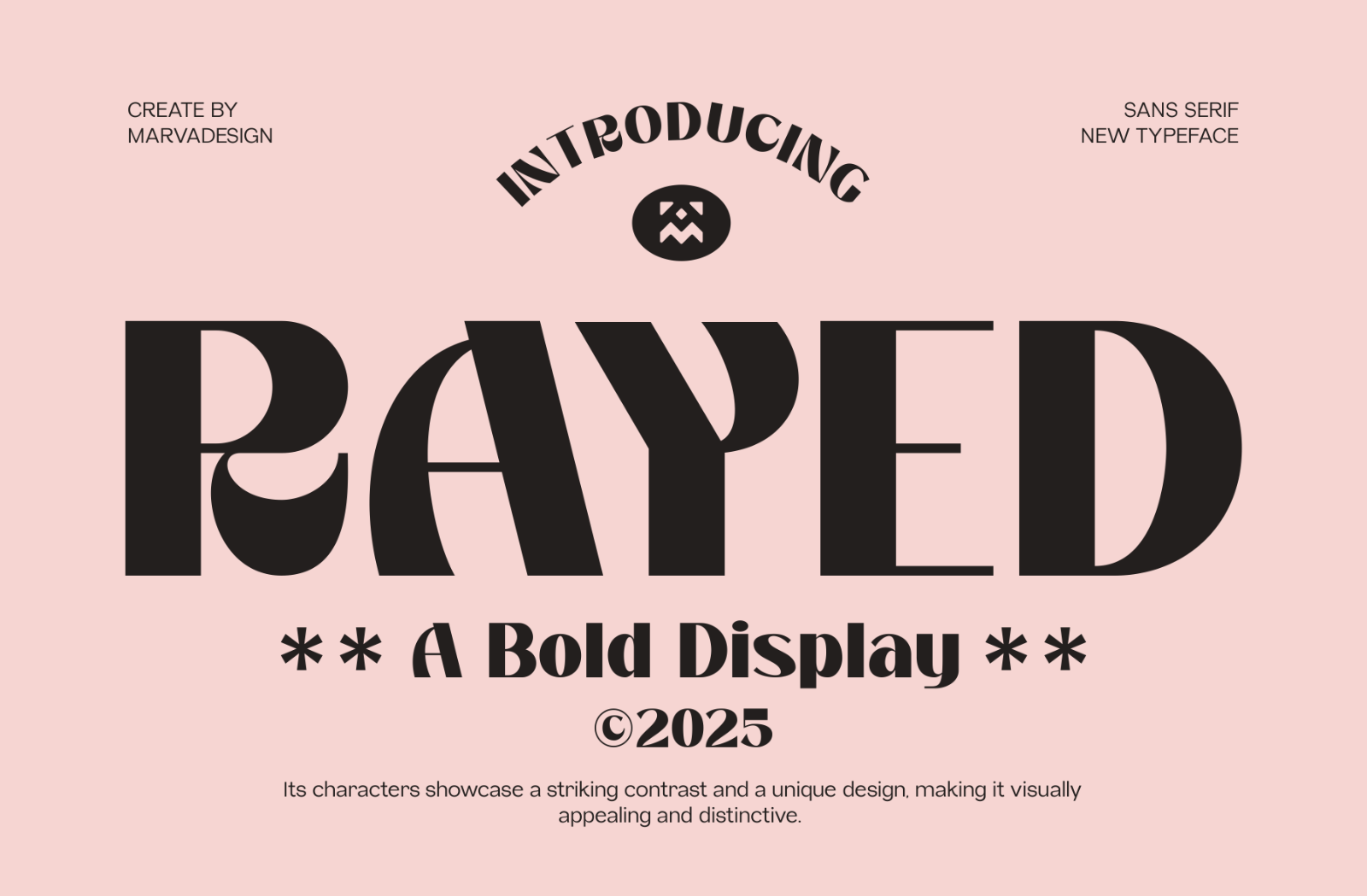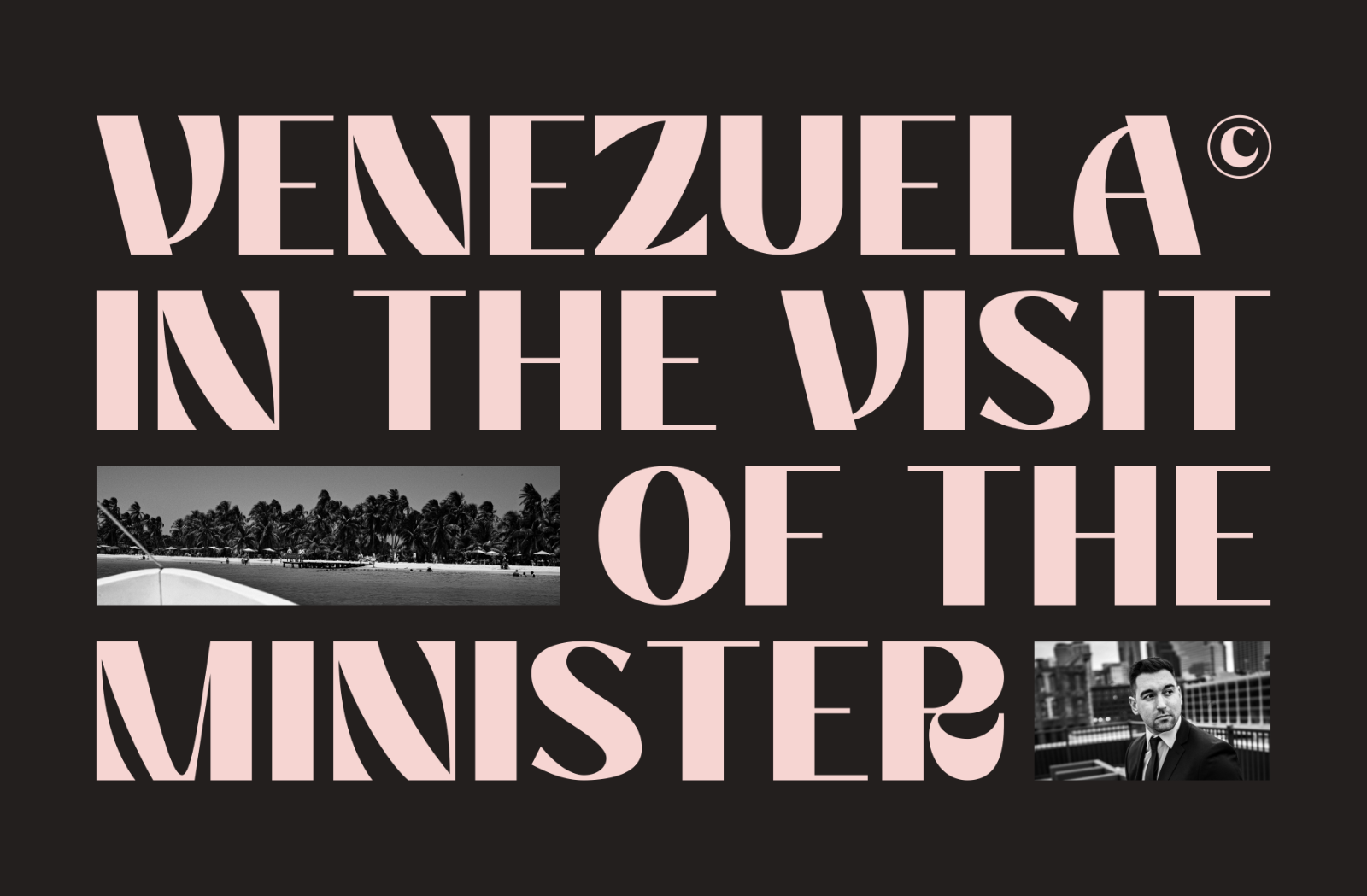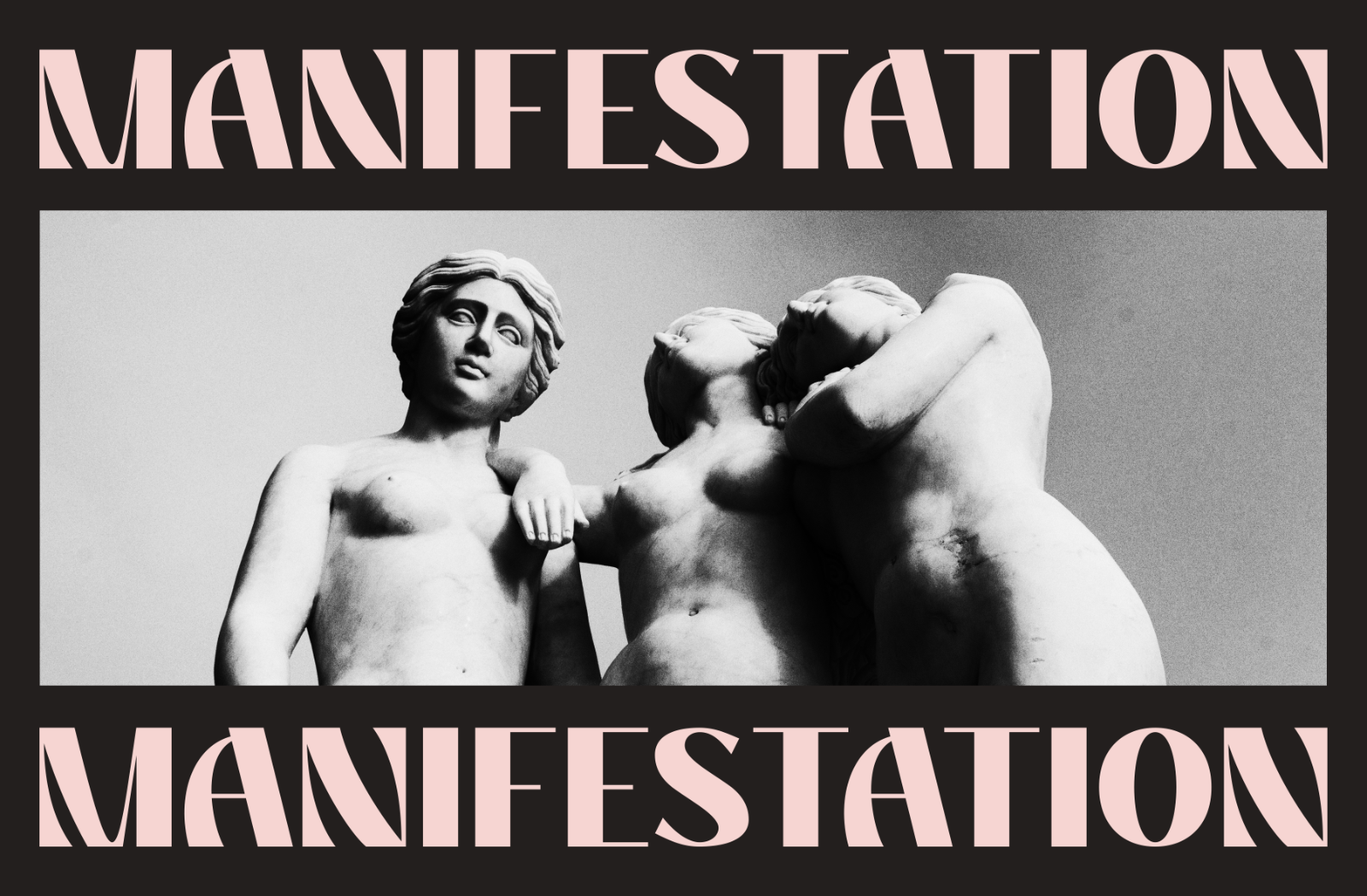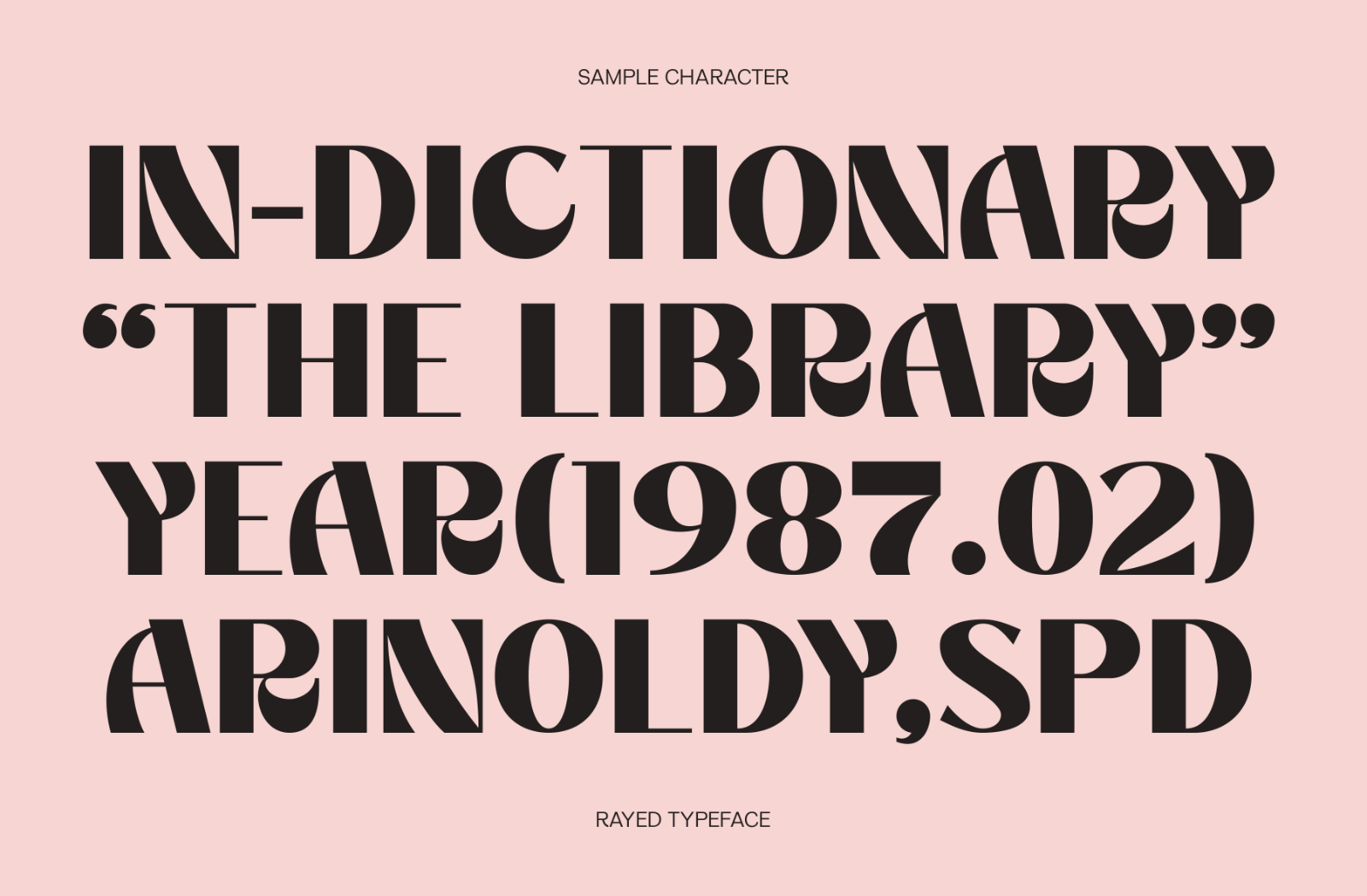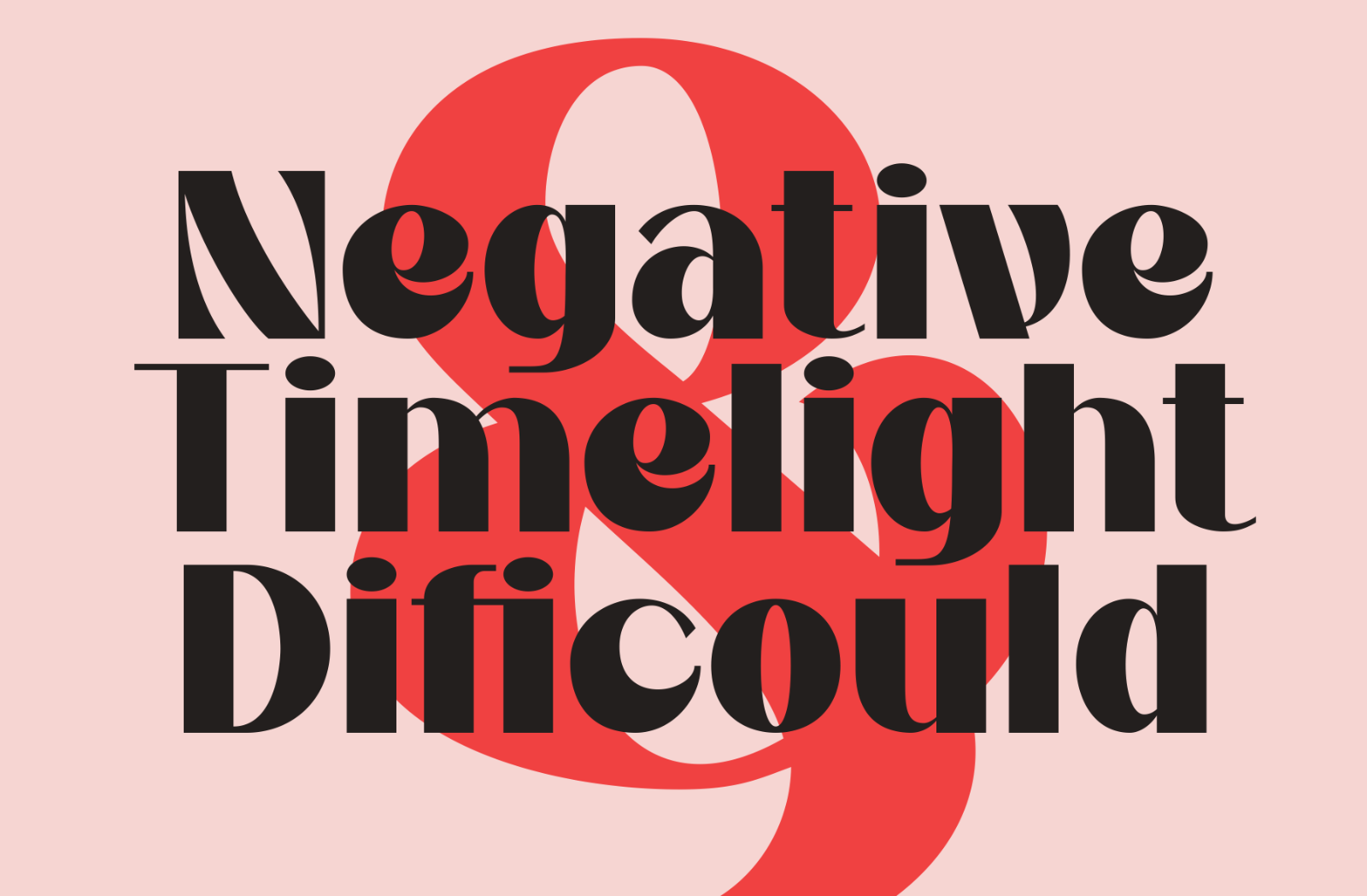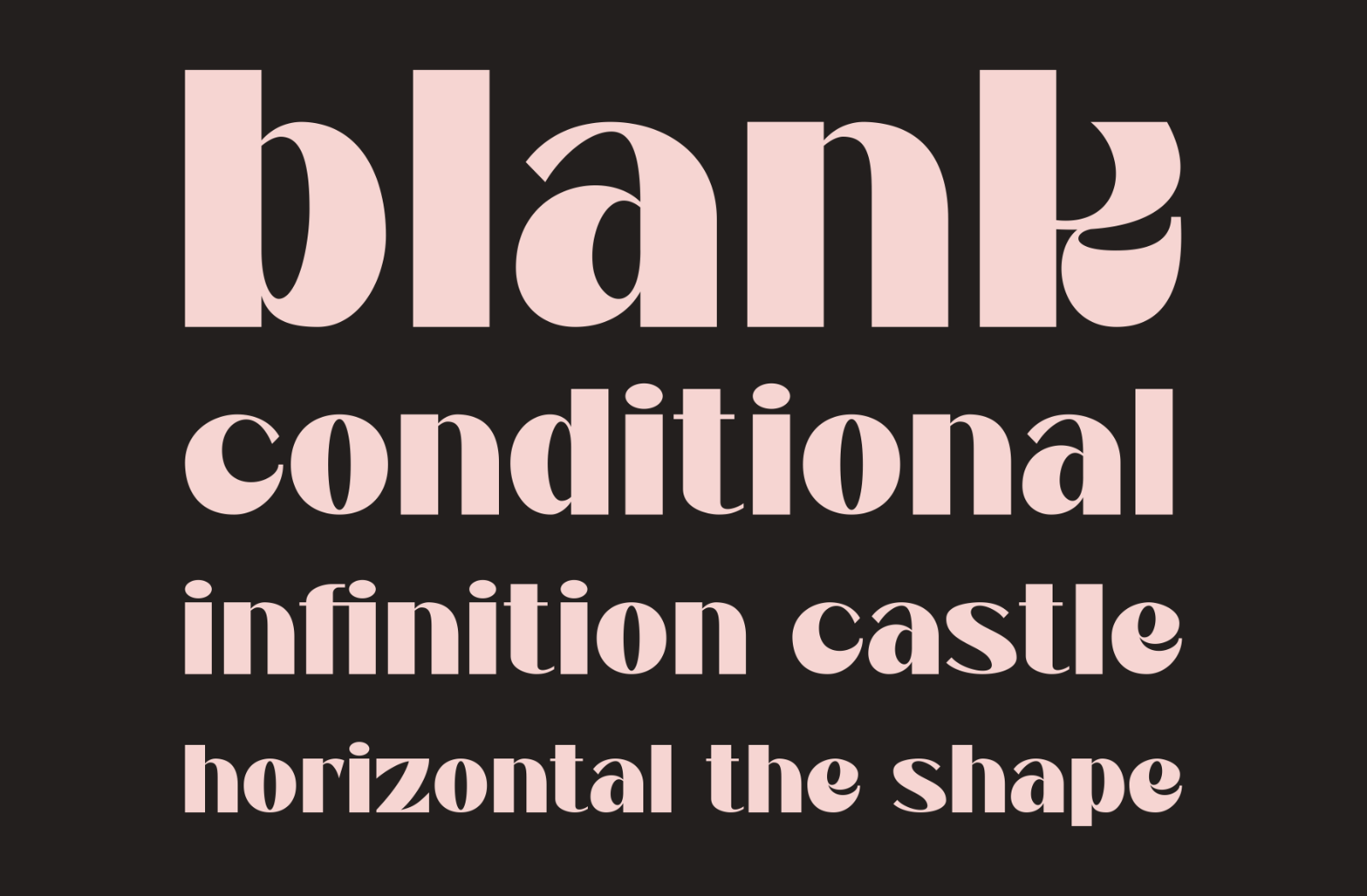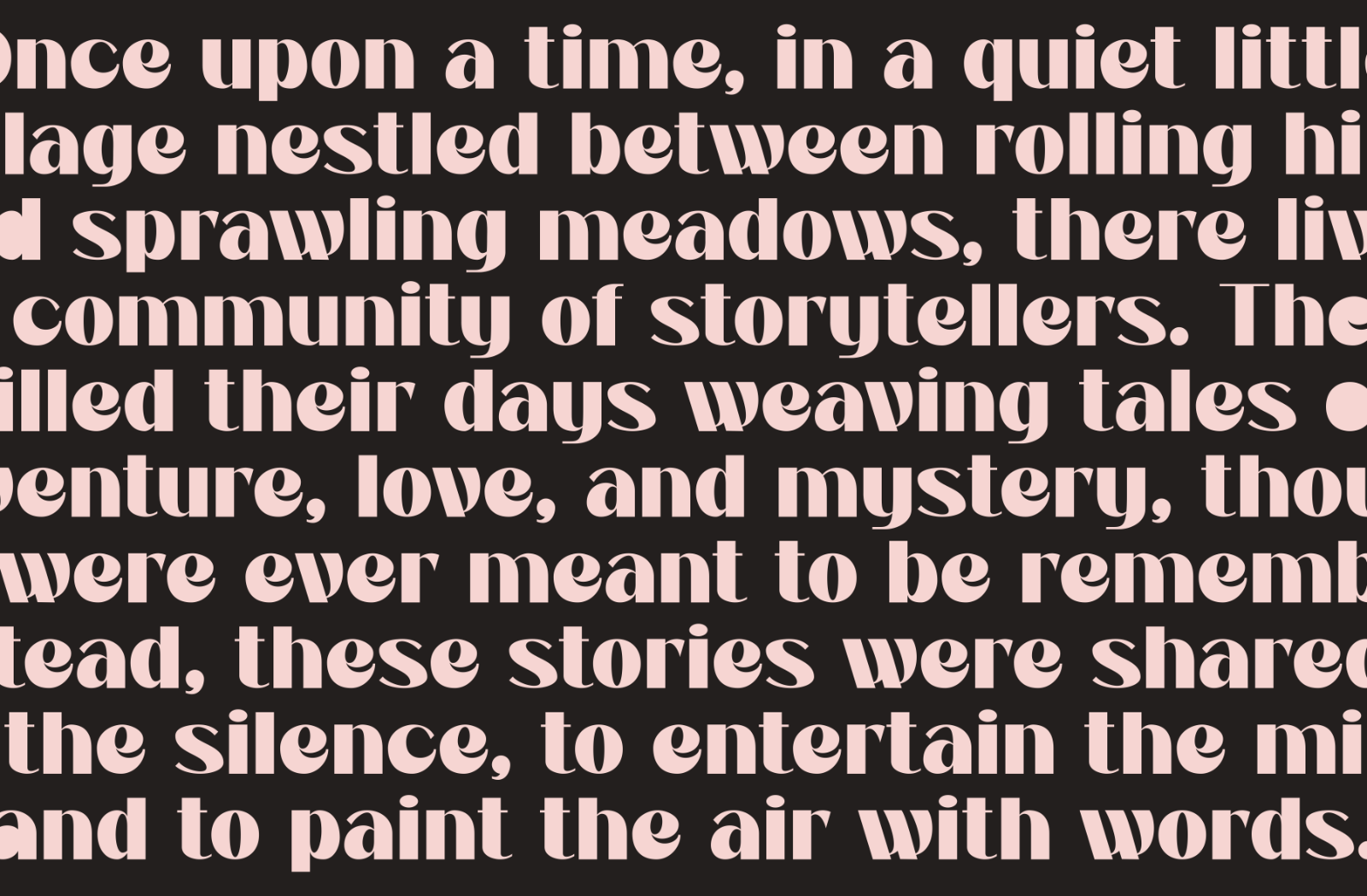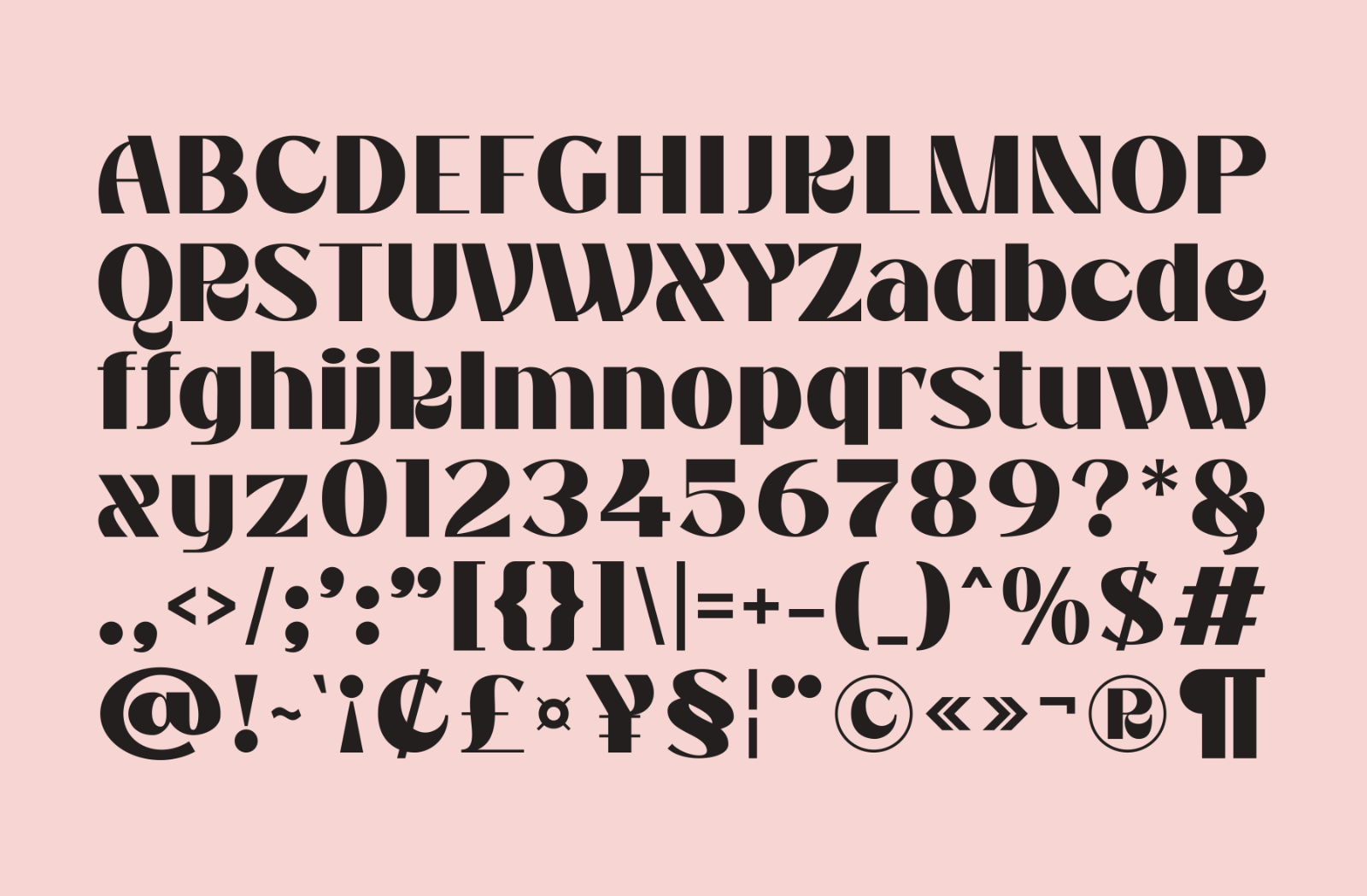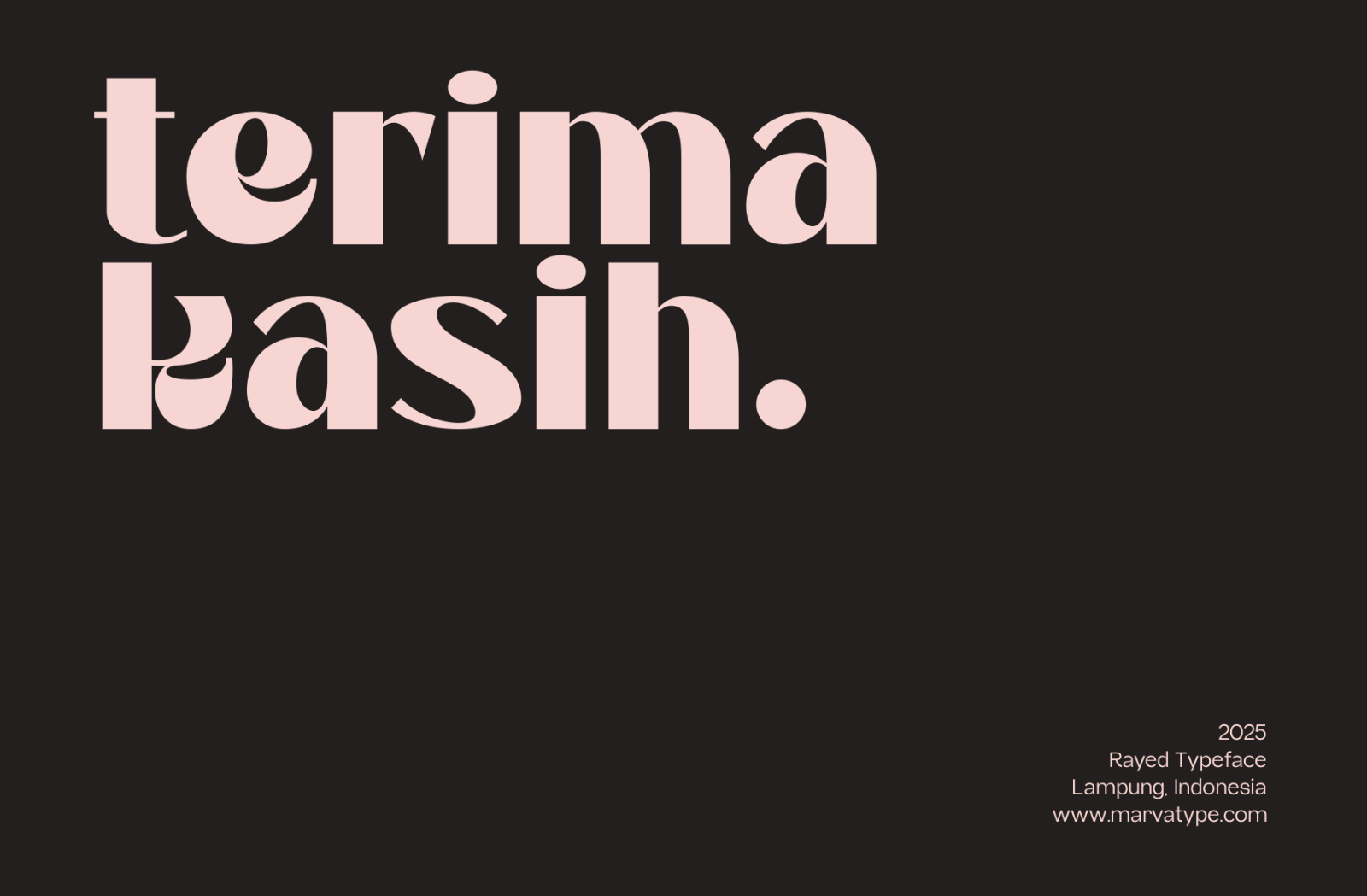
Introducing New Brand Typeface Rayed font is a bold display typeface combined with sans-serif elements. Its characters showcase a striking contrast and a unique design, making it visually appealing and distinctive. This font is versatile and works excellently in both uppercase and lowercase formats, making it suitable for various design purposes such as branding, headlines, and creative projects.